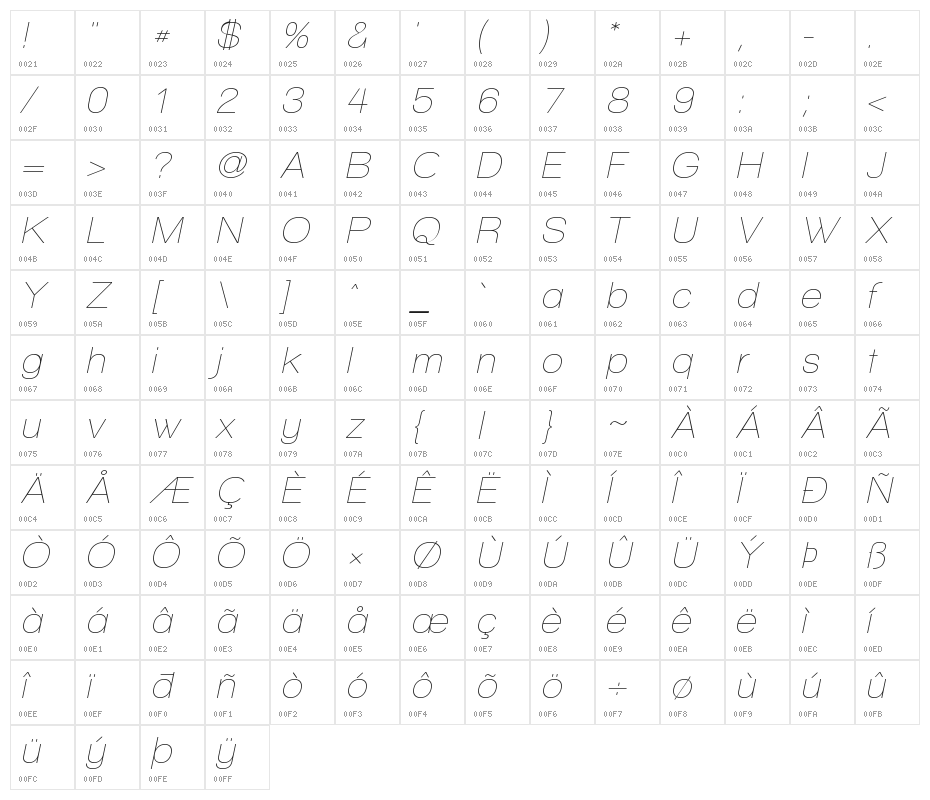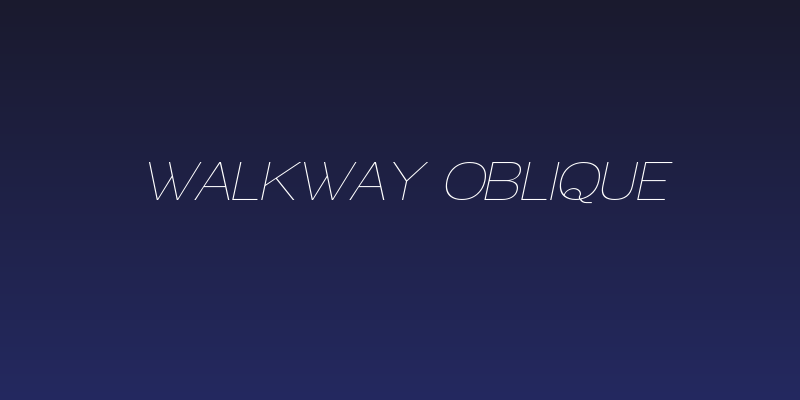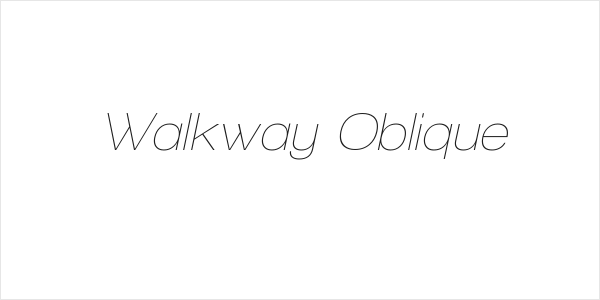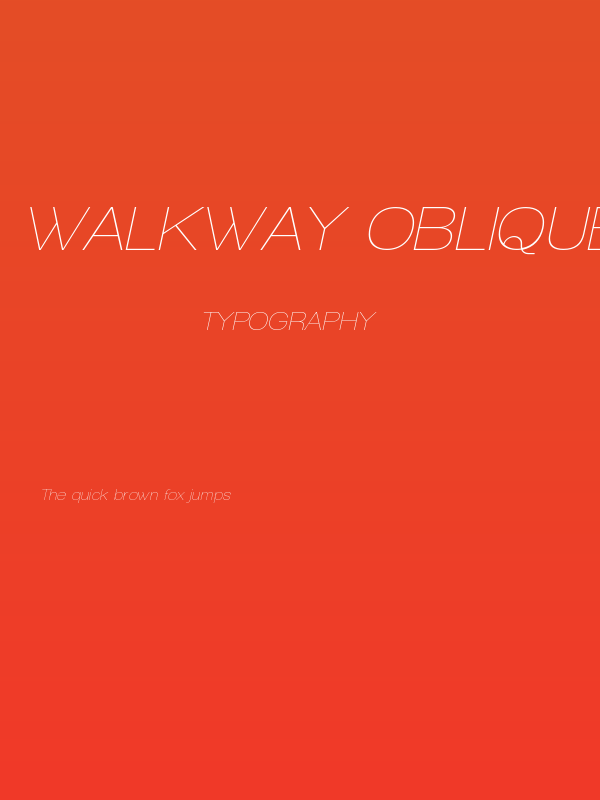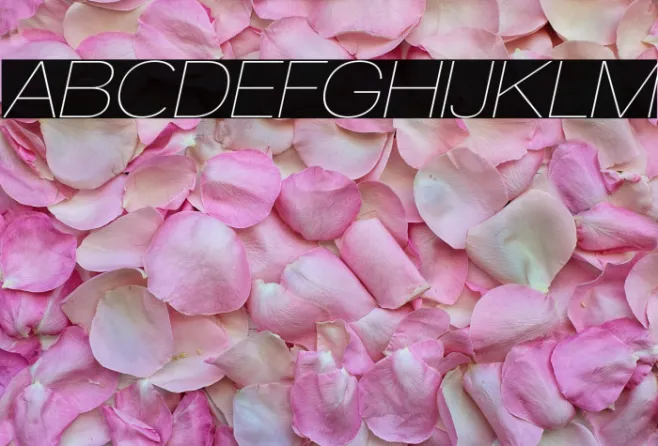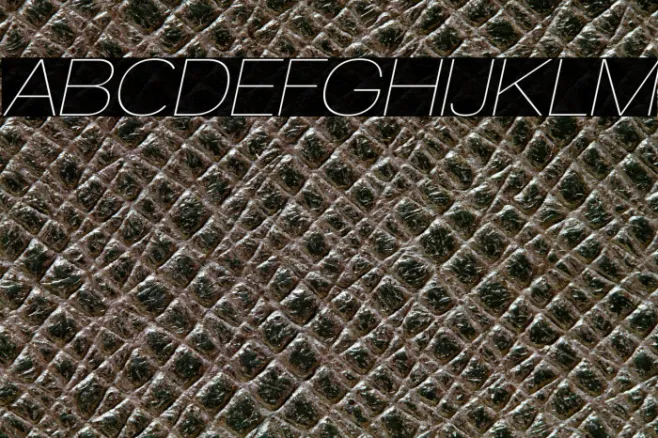
Walkway Oblique Font
Walkway Oblique Description
This font features a sleek and modern oblique style, characterized by its thin, elongated letterforms that convey a sense of elegance and sophistication. The characters are slightly slanted, giving a dynamic and forward-moving appearance. The font maintains a consistent stroke width throughout, contributing to its clean and minimalist aesthetic. The uppercase and lowercase letters are well-proportioned, with a harmonious balance between curves and straight lines. The numerals are distinct and easy to read, while the special characters are designed to complement the overall style. This font is versatile, suitable for a variety of design applications where a contemporary and stylish look is desired.
| Use Case | Headlines, Logos, Editorial design |
| Proposed Projects | Ideal for modern branding, editorial design, fashion magazines, and digital interfaces. |